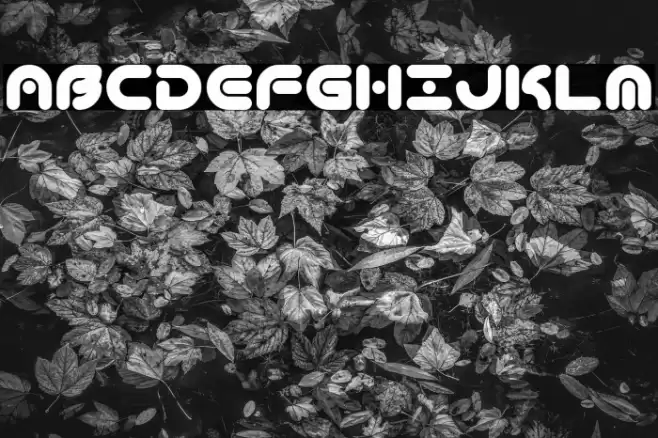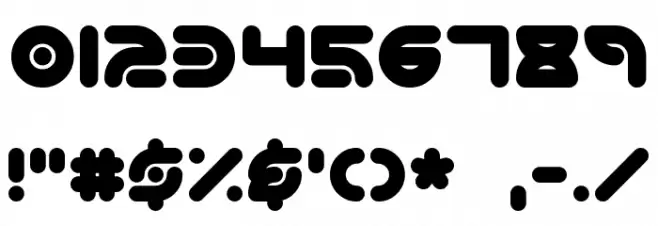
Technique BRK Font
Technique BRK Description
This font features a bold, rounded style with a futuristic and digital aesthetic. Each character is composed of thick, uniform strokes that create a cohesive and modern look. The letters are designed with a consistent width, giving them a monospaced appearance, although they are not strictly monospaced. The font's unique design includes rounded edges and a playful, almost bubble-like form, making it stand out. The numbers and special characters follow the same design principles, ensuring uniformity across all glyphs. This font is ideal for projects that require a modern, tech-inspired look.
A bold, rounded font with a futuristic and digital aesthetic from Regular fonts.
- Font: Technique BRK
- Proposed Projects: Ideal for technology branding, digital media, video game interfaces, and modern advertising.